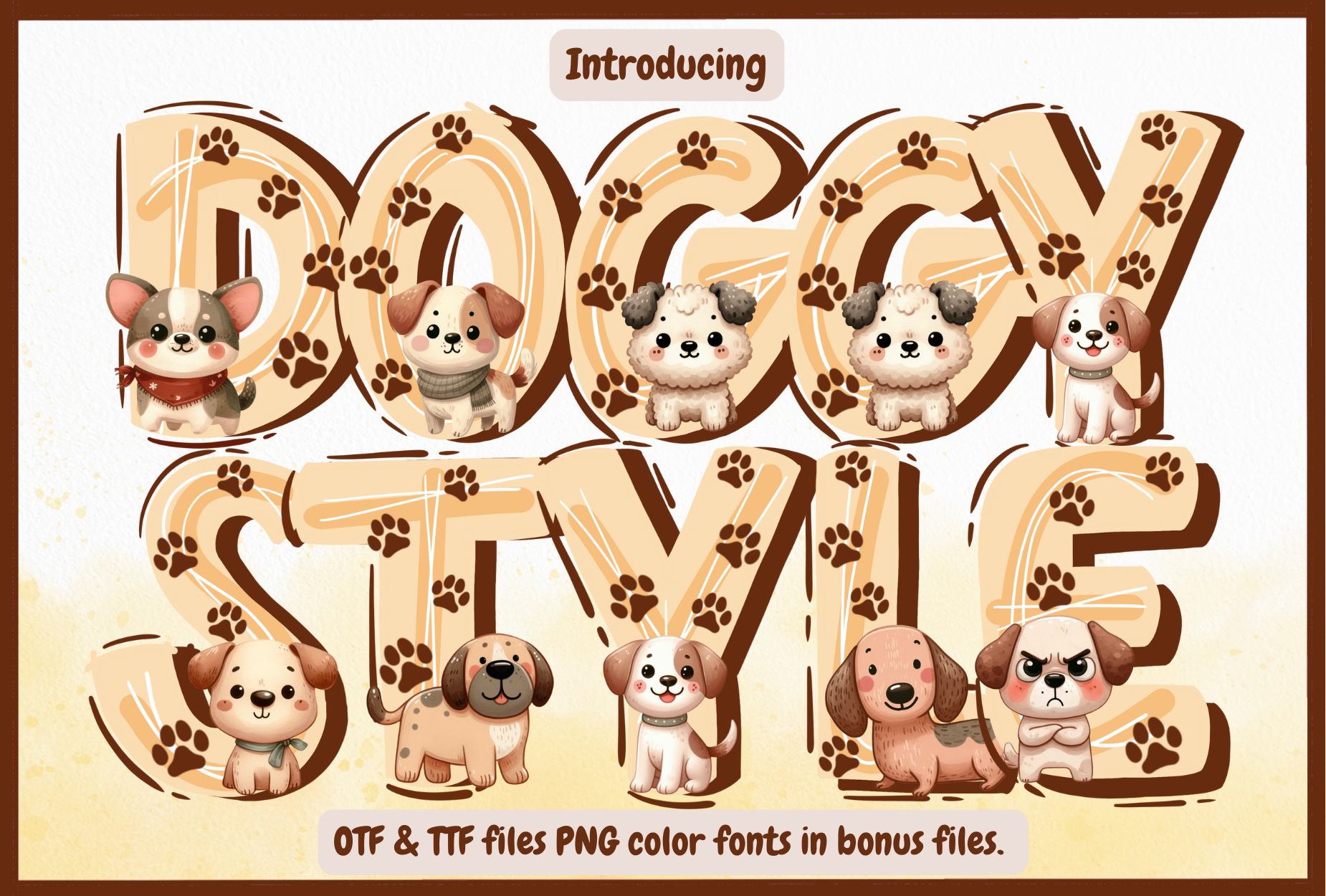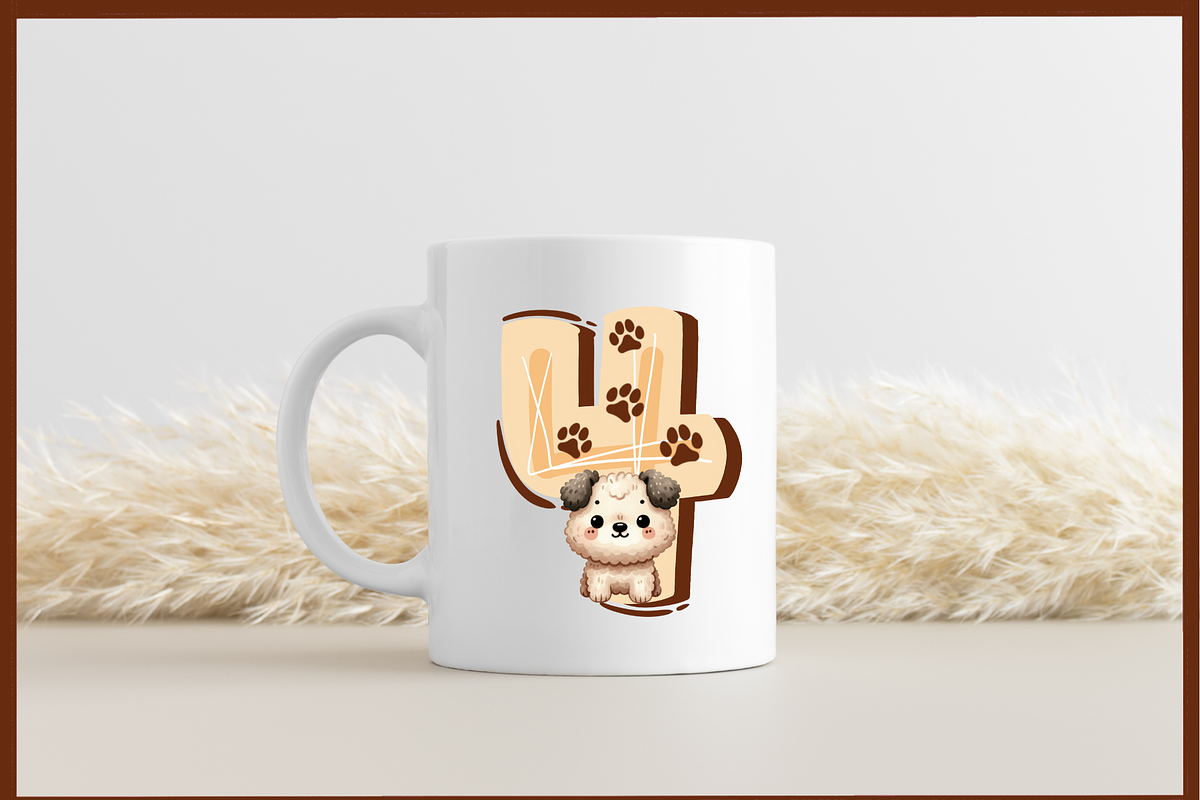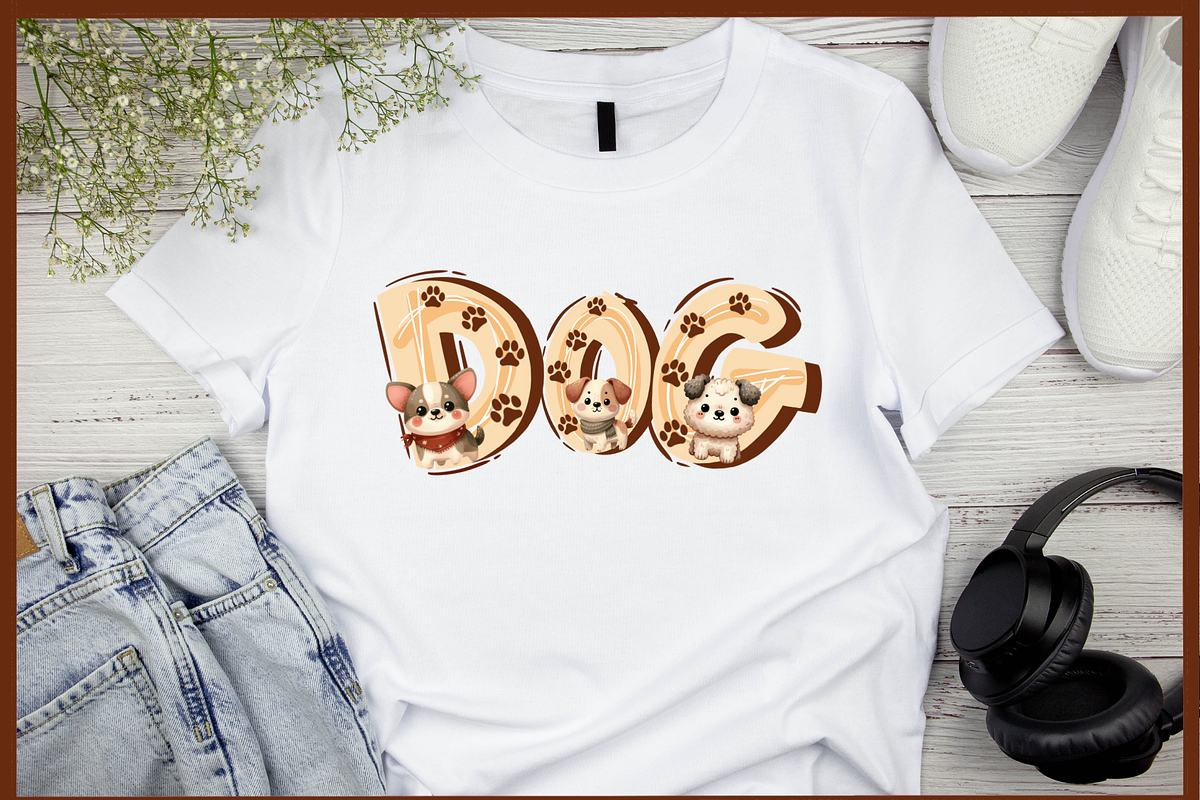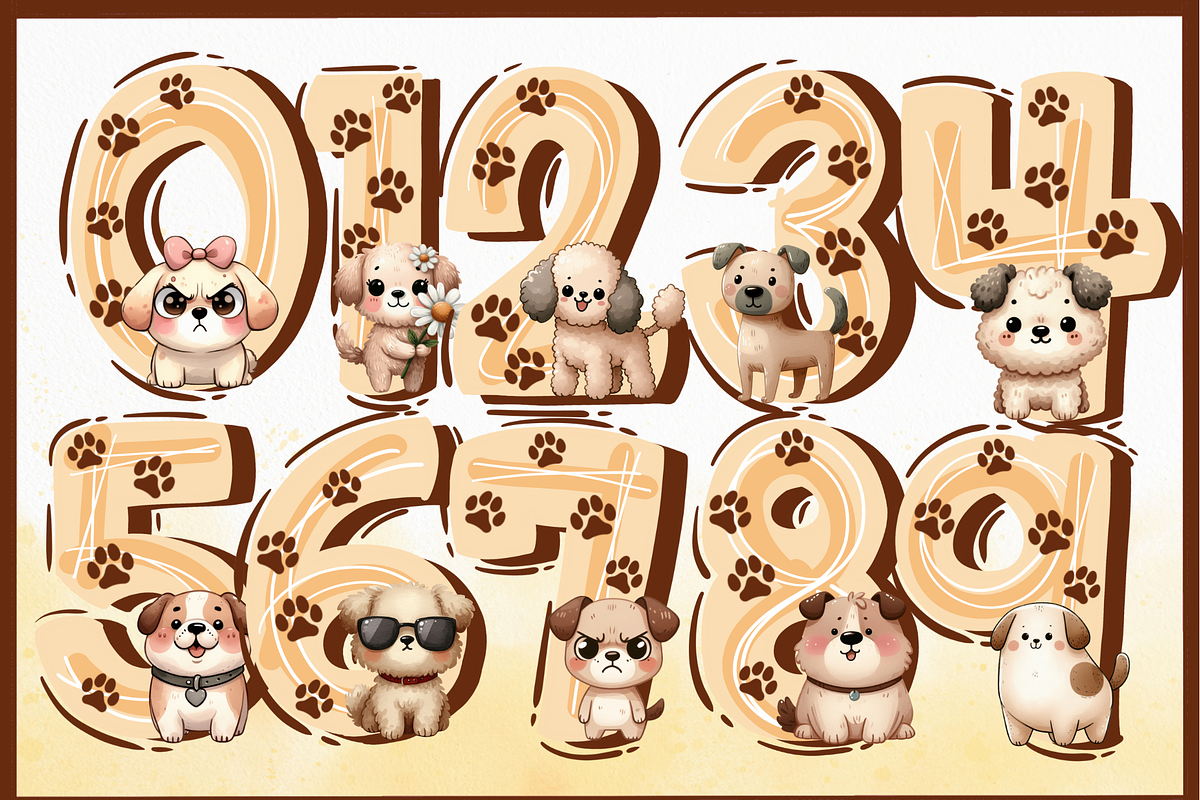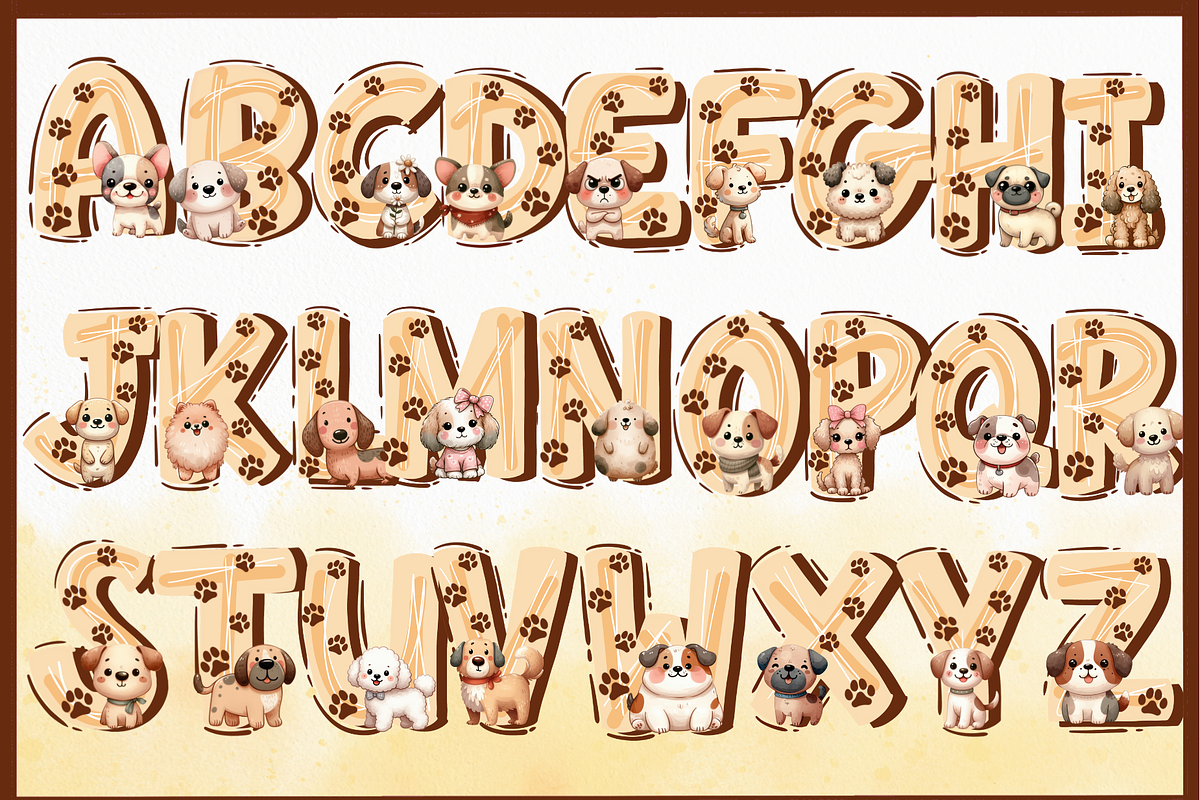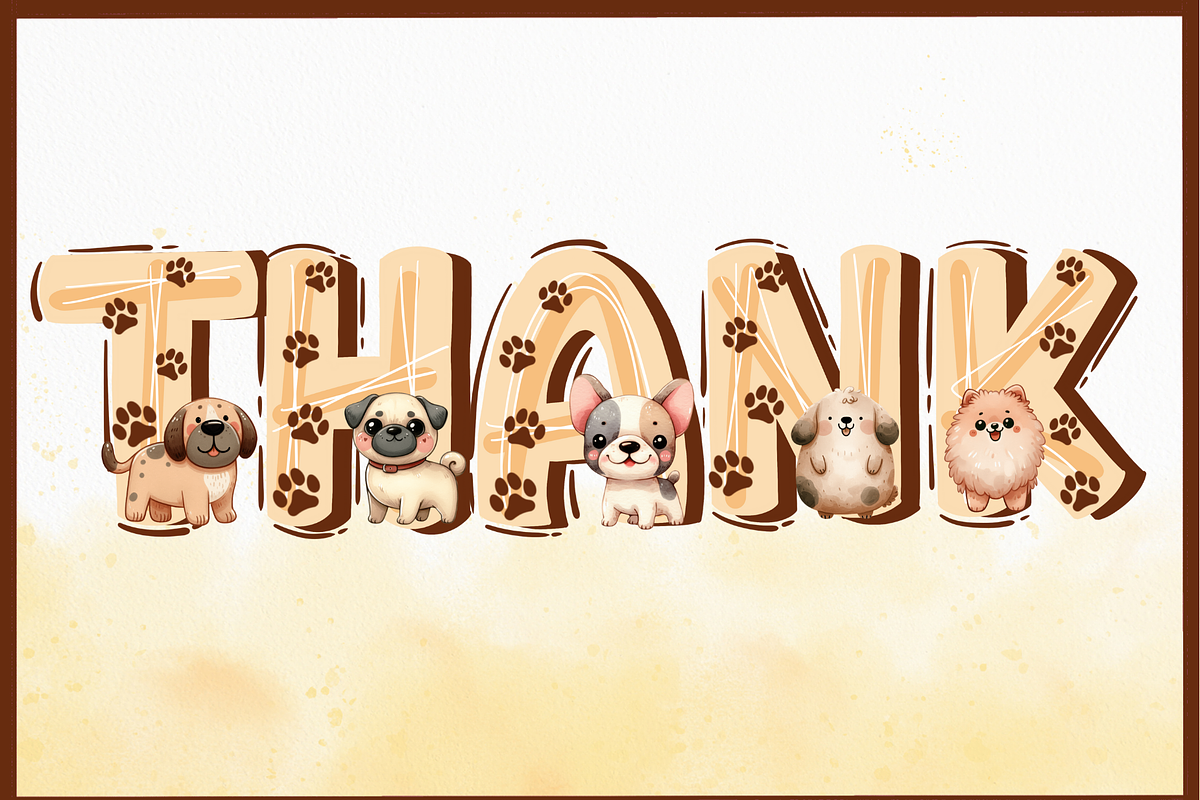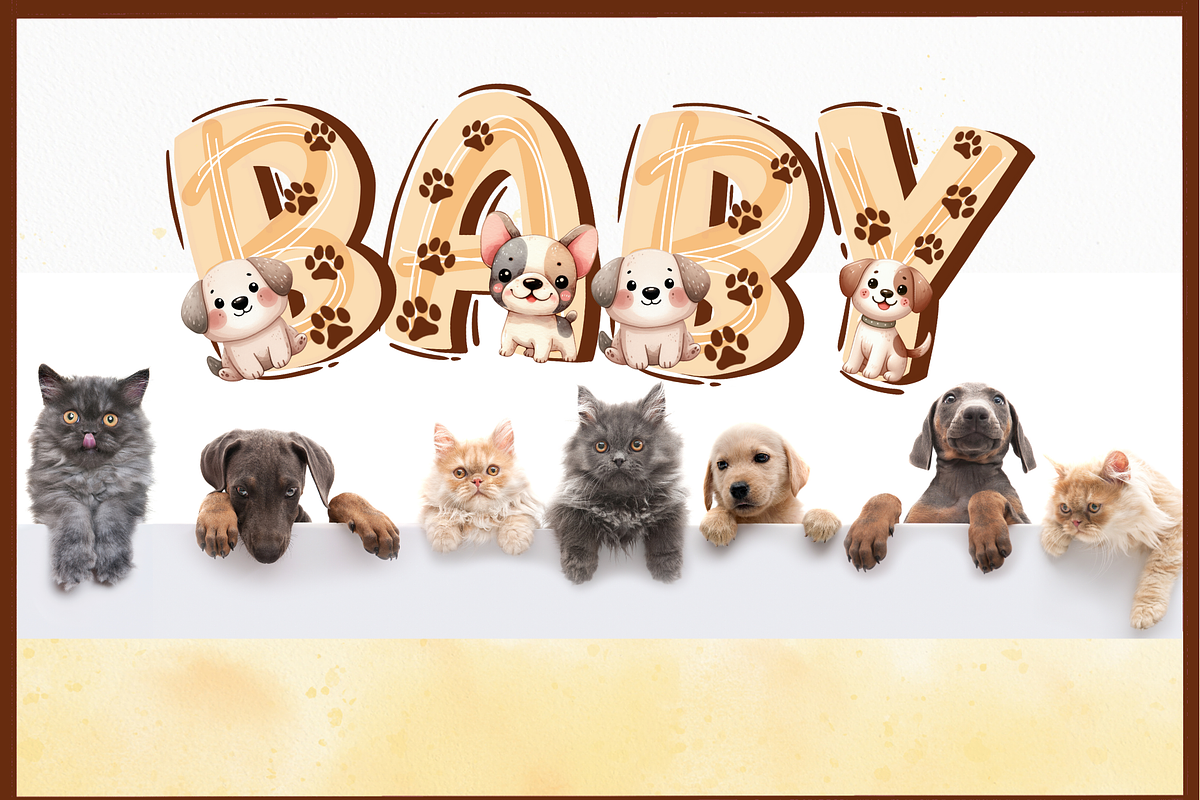
Doggy Style-PNG fonts
Doggy Style Font
Doggy Style is a playful and heartwarming display font featuring adorable puppy-themed lettering decorated with paw prints.